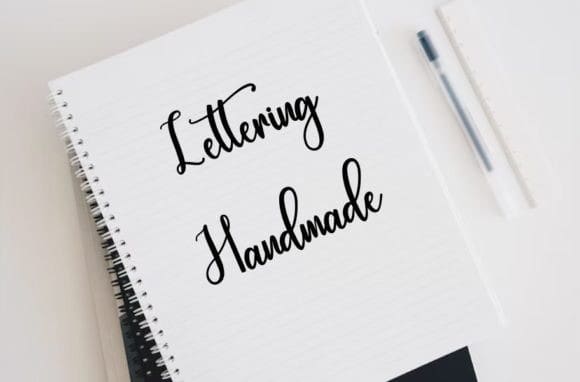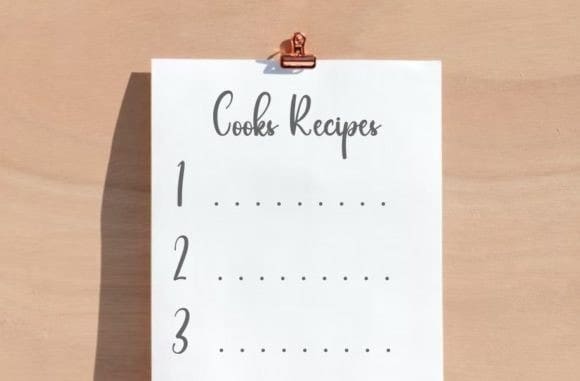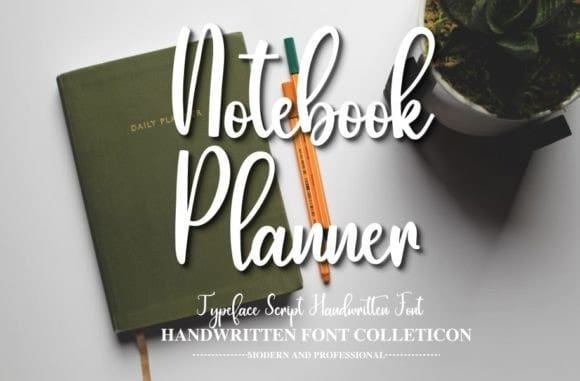
Notebook Planner Font
Notebook Planner is a delicate handwritten font carefully crafted for a cool and simple design. This font can be used to write letters, invitations, food products, titles, and more.